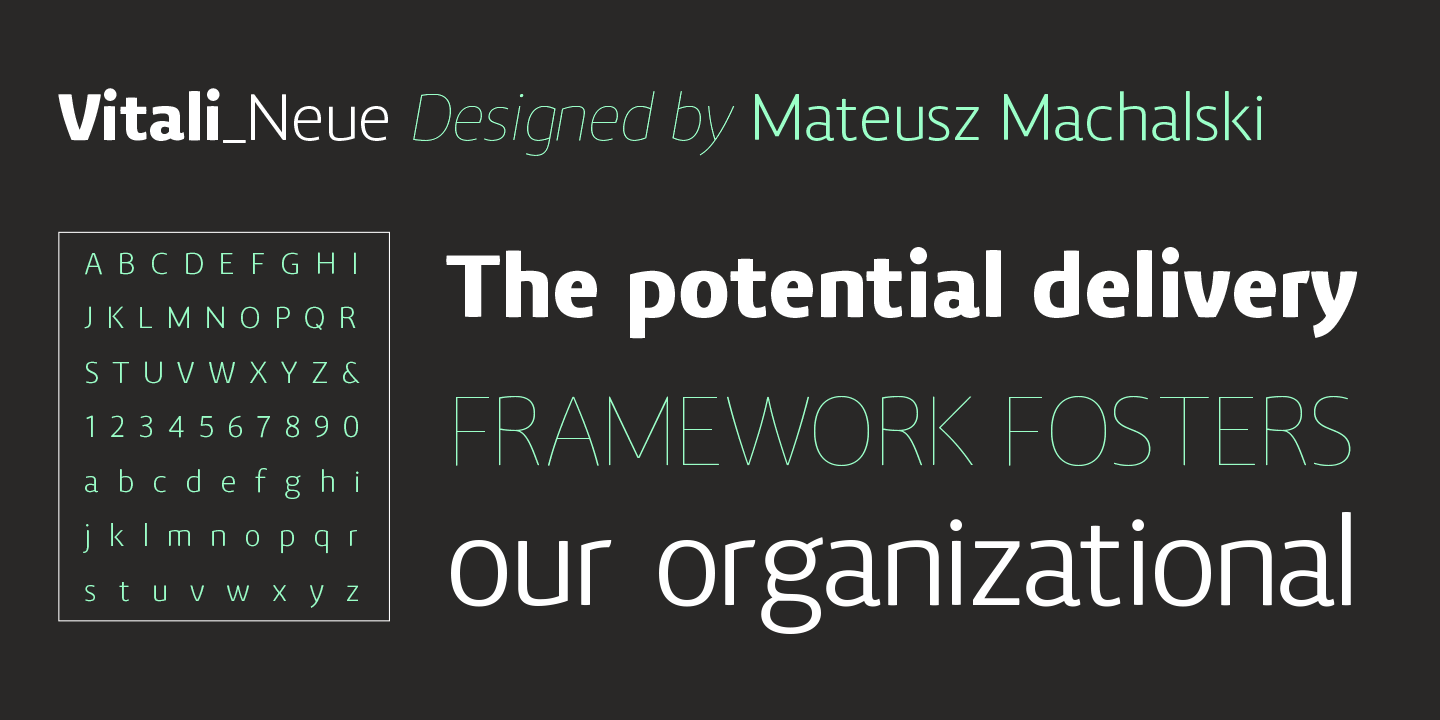
Vitali Neue Font is perfect for various applications including modern healthcare branding, wellness center logos, fitness app interfaces, vitality supplement packaging, life coaching materials, healthy lifestyle magazines, energetic marketing campaigns, medical innovation presentations, wellness technology platforms, and dynamic health-focused communications.
What makes Vitali Neue Font so exciting is its extraordinary ability to embody energy, vitality, and life force through typography that radiates health, vigor, and contemporary wellness philosophy. This invigorating typeface features dynamic letterforms with vital proportions and energy-inspired details that capture the essence of optimal health and modern wellness culture. The font's energetic character and vitality-focused aesthetic make it ideal for brands that want to convey health, energy, and life enhancement to audiences who prioritize wellness, fitness, and vibrant living experiences.
Vitali Neue Font family includes multiple weights and styles: Thin, Light, Regular, Medium, Bold, Black, Energetic, Condensed, Extended, and vitally crafted Italic variants. Each family member maintains the font's signature vitality while offering different levels of visual impact and stylistic flexibility for diverse health and wellness applications.
Typography wellness experts will appreciate the dynamic energy and health-focused craftsmanship in Vitali Neue Font's design. The font features energetically flowing letterforms with vital proportions, optimized spacing for wellness applications, and carefully engineered details that ensure excellent readability while maintaining its invigorating character. From fitness app interfaces to health supplement packaging, this typeface maintains its energy and wellness appeal across all vitality contexts.
For wellness web designers, Vitali Neue Font provides outstanding performance in health-focused digital environments and fitness platforms. The font's technical specifications are optimized for energetic presentations while preserving the dynamic, vital edges that define its wellness character. Its vitality makes it suitable for both static health content and interactive wellness experiences.
Creative professionals working in healthcare, fitness industries, wellness technology, and vitality brands will find Vitali Neue Font to be an essential tool for projects requiring energetic visual communication. The font's ability to convey health, vitality, and life enhancement makes it invaluable for brands targeting wellness-conscious demographics and health-focused audiences.
Design agencies specializing in health and wellness brands appreciate Vitali Neue Font's versatility in creating memorable vital identities that energize and inspire.